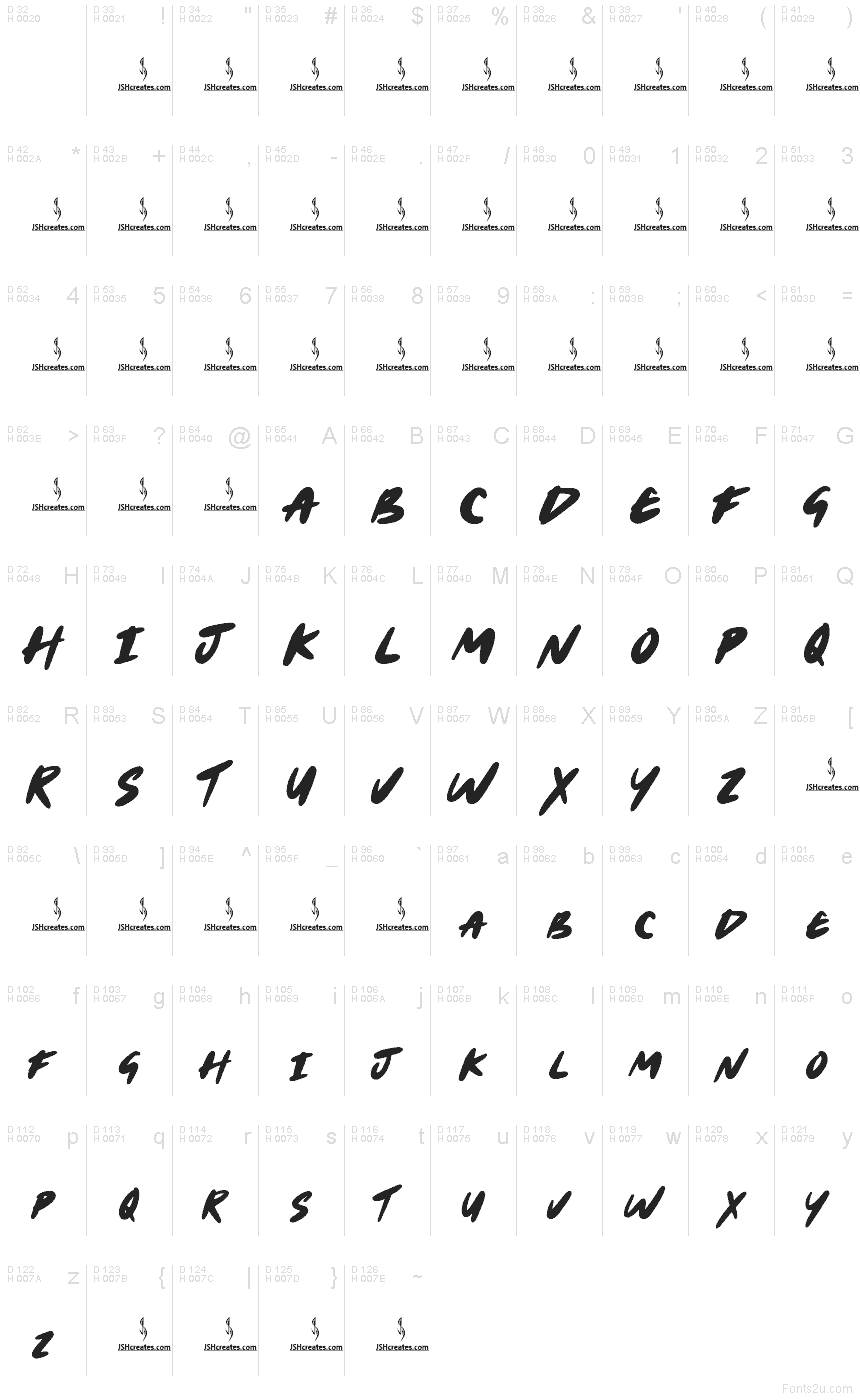
Hosanna
Hosanna font is a brush-style typeface with a bold weight, designed by JSH creates. It balances expressive natural flow. This free handwritten font demonstrates casual elegance and inviting charm. It borrows elements from modern script styles and signature-style typography for its creation.